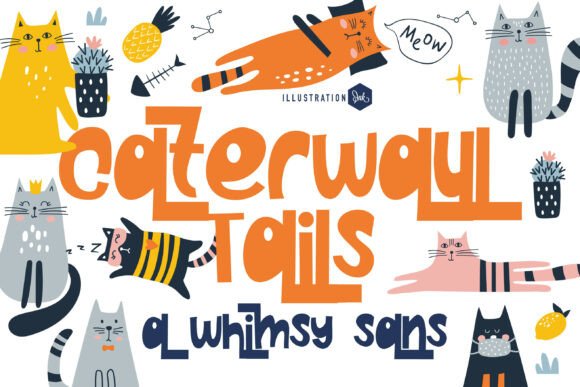
Discover the Playful Charm of Caterwaul Tails Font
I’ll never forget the time I was working on a children’s book project, and my client asked me to create a title page that would grab kids’ attention. I scoured the internet for the perfect font, but nothing seemed quite right. That was until I stumbled upon Caterwaul Tails. This whimsical sans font has been a game-changer for my designs, and I’m excited to share its magic with you! ✨
A Masterclass in Playful Geometry
Caterwaul Tails is a unique typeface that combines tall, blocky structures with quirky, organic flourishes. The sharp, precision-cut “tails” add a rhythmic sense of movement to every word, making it perfect for projects that need a dash of energy and playfulness. Its distinctive personality makes it an excellent choice for:
- Children’s book titles
- Pet-focused branding
- Educational social media content
- High-energy apparel graphics
- ✨ Unique and playful design that grabs attention
- ✅ Extensive OpenType features, including stylistic alternates and glyphs
- ✅ Works beautifully for both digital and print projects
- ⚠️ Some characters may appear a bit narrow, so be mindful of spacing
- 🤔 Limited use of uppercase letters may make it less suitable for certain applications
The Story Behind Caterwaul Tails
Caterwaul Tails was designed with the intention of capturing the carefree spirit of childhood. Its creator, a type designer with a passion for playful typography, drew inspiration from the world of children’s literature and illustration. The result is a font that’s both fun and sophisticated, perfect for designers who want to add a touch of magic to their projects.
Q: What makes Caterwaul Tails unique?
A: Caterwaul Tails’ distinctive “tails” and playful geometry set it apart from other fonts.
Q: Is Caterwaul Tails suitable for body text?
A: While Caterwaul Tails is highly legible, it’s best suited for headlines and titles due to its unique design.